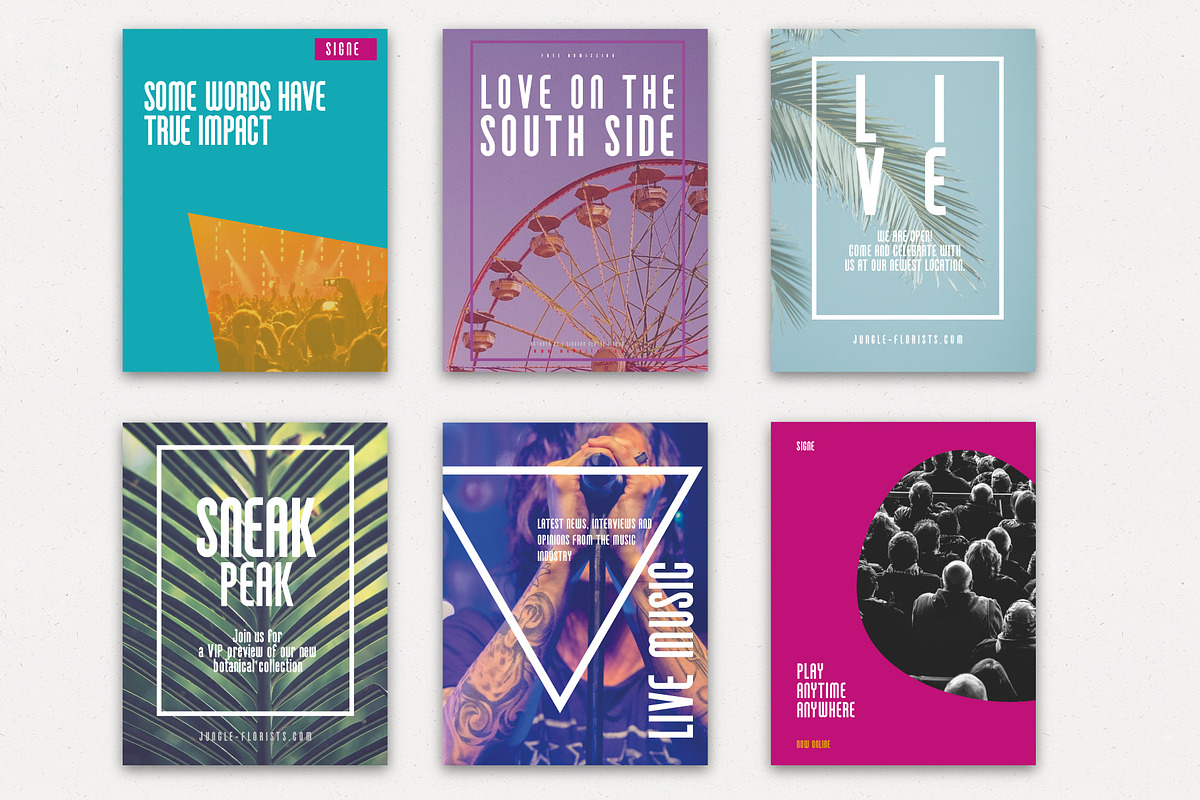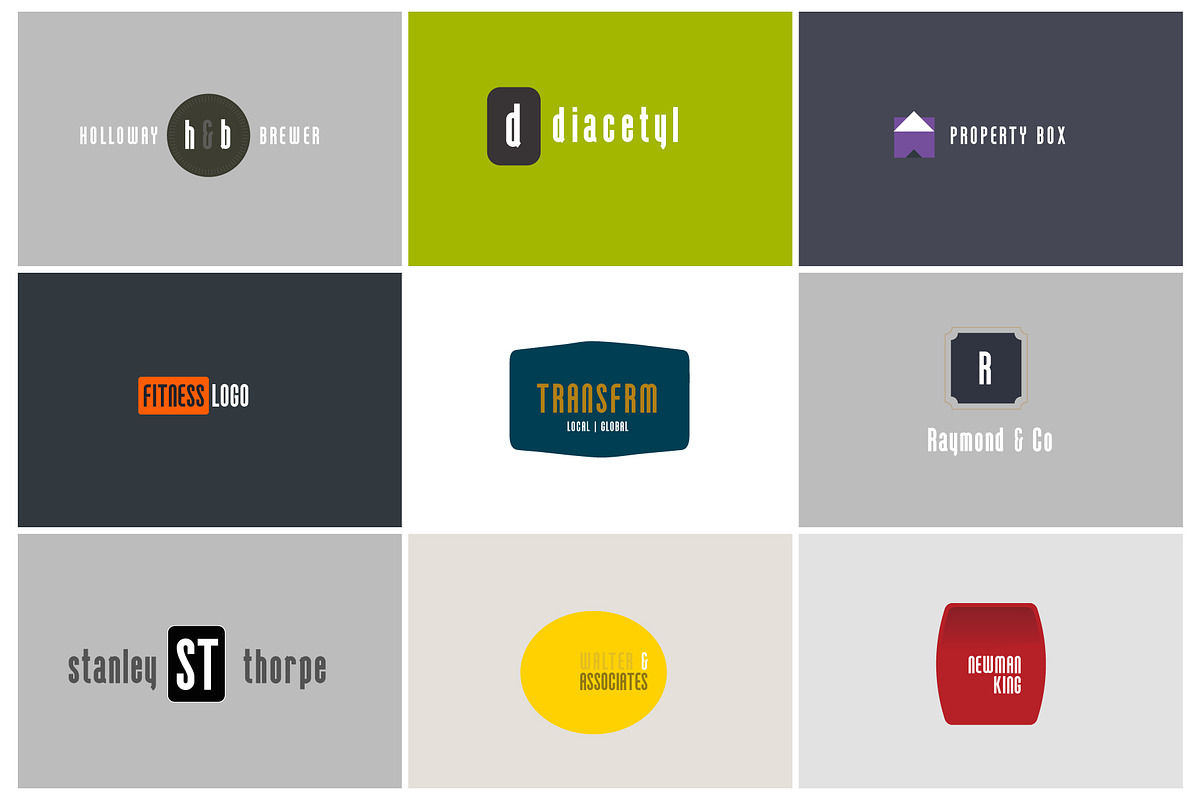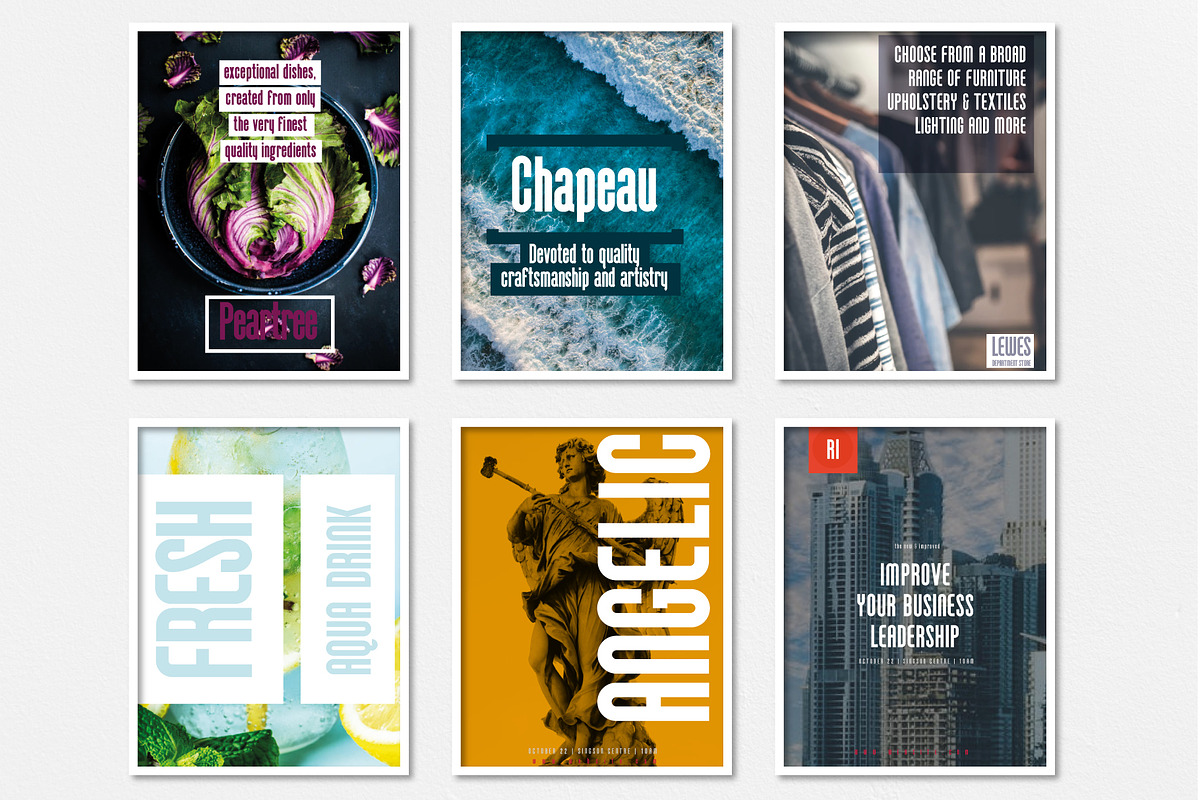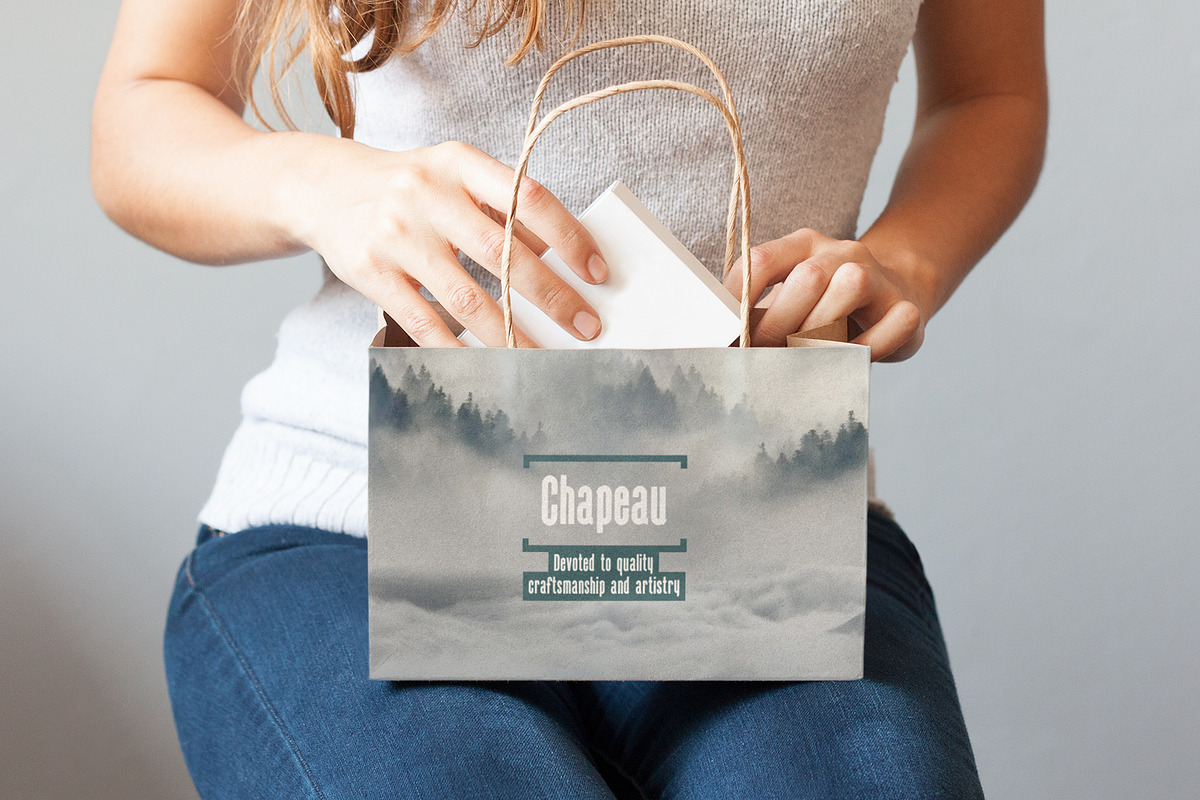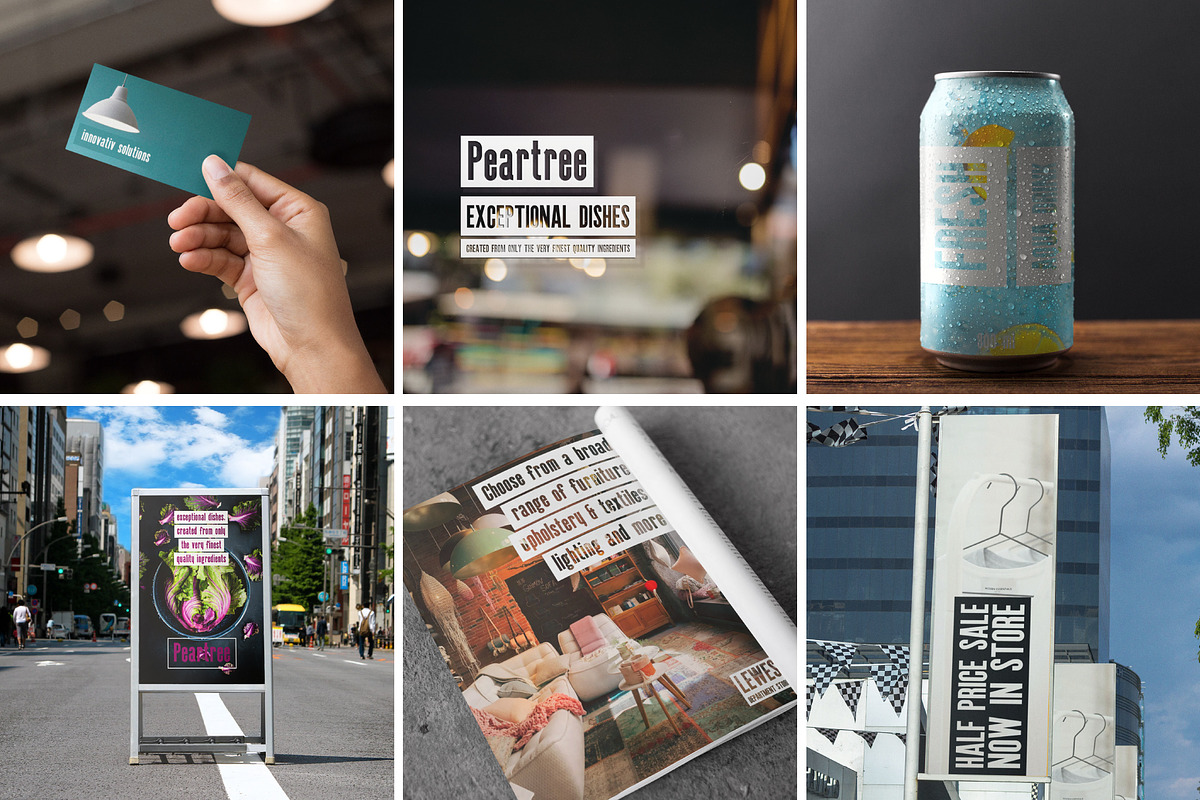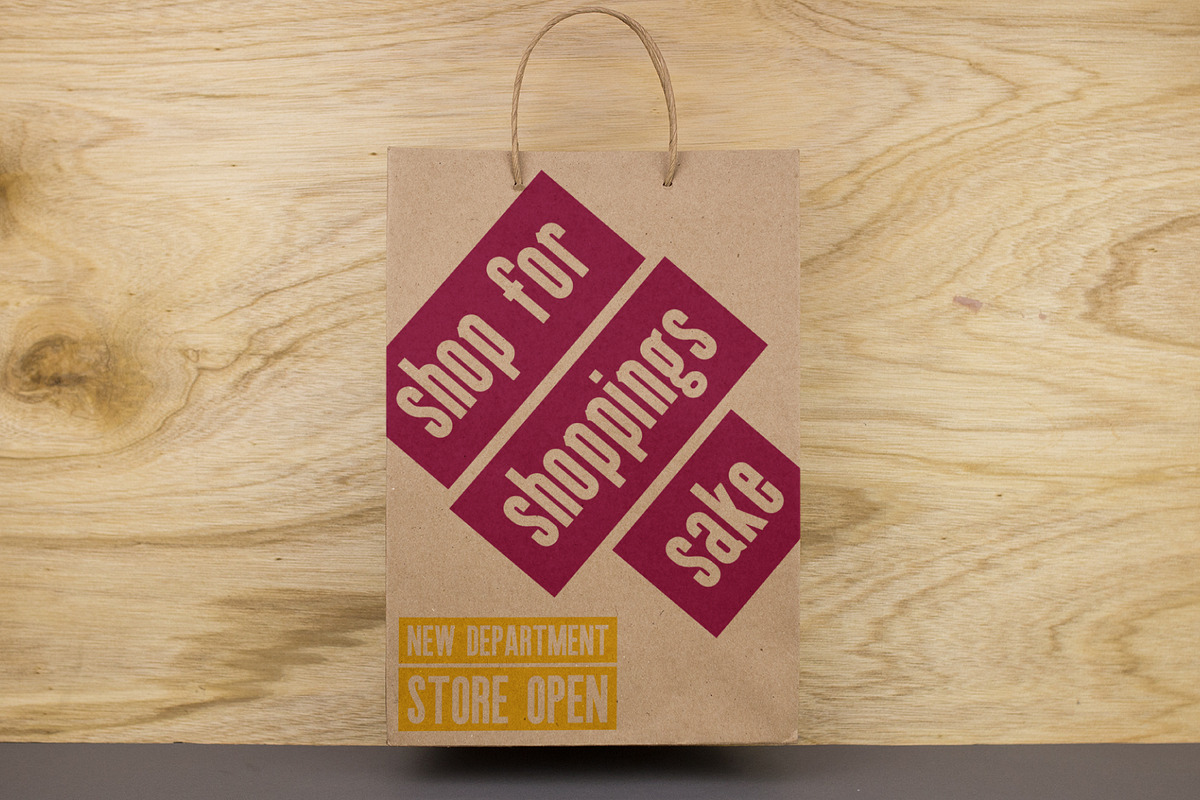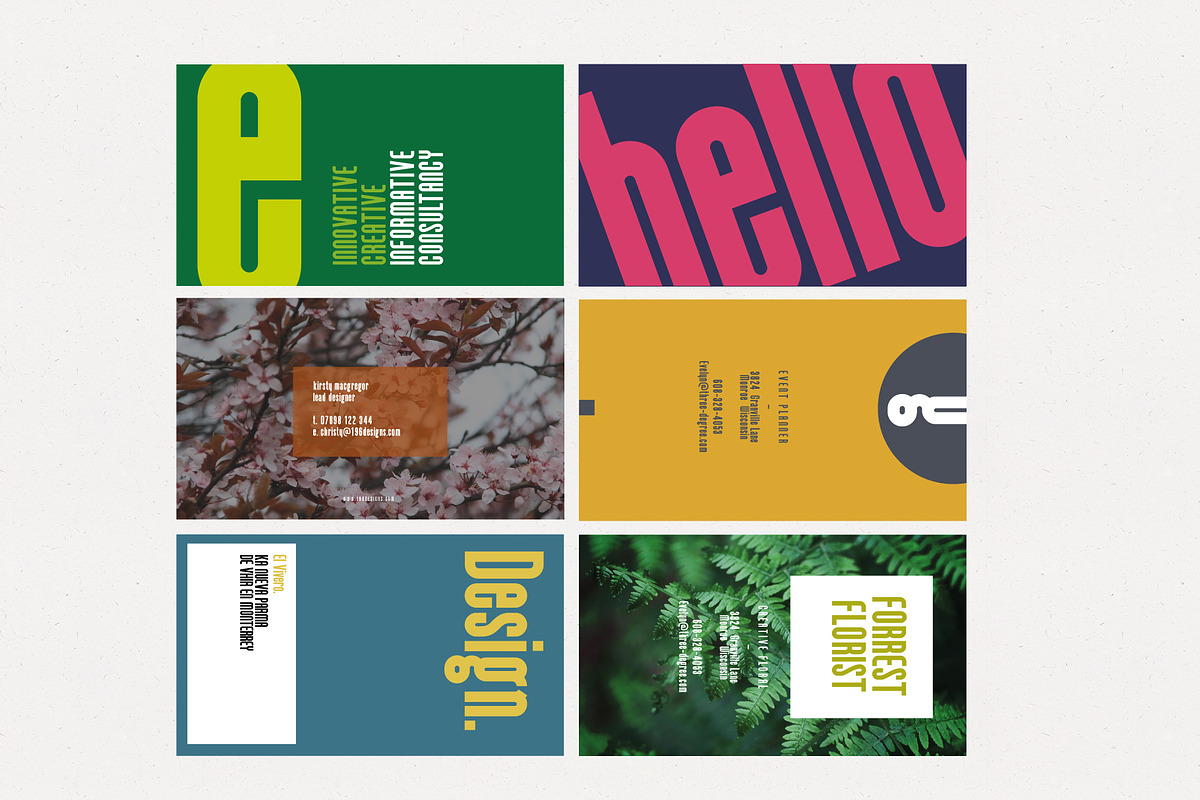
Signe | Condensed Font
The Signe Typeface is a Condensed Sans Serif font family by Craft Graphic. Condensed aspects of the font, combined with tight stems, tails and descenders and small flourishes to make this font great to use for a retro feel or a design with an edge to bring your designs to life.
Modern in style, bold in use for titles, headlines and great at large and small sizes, making it suitable for Web, Print, Commercial and Art. Perfect for headlines and packaging projects, through to marketing material to bring your designs to life.
This package includes more than just the font. We have created over 25 editable designs made with Signe. This pack includes a number of editable templates for you to start your design with the font, including Logo designs, Business Card Designs, Poster and Flyer Designs.